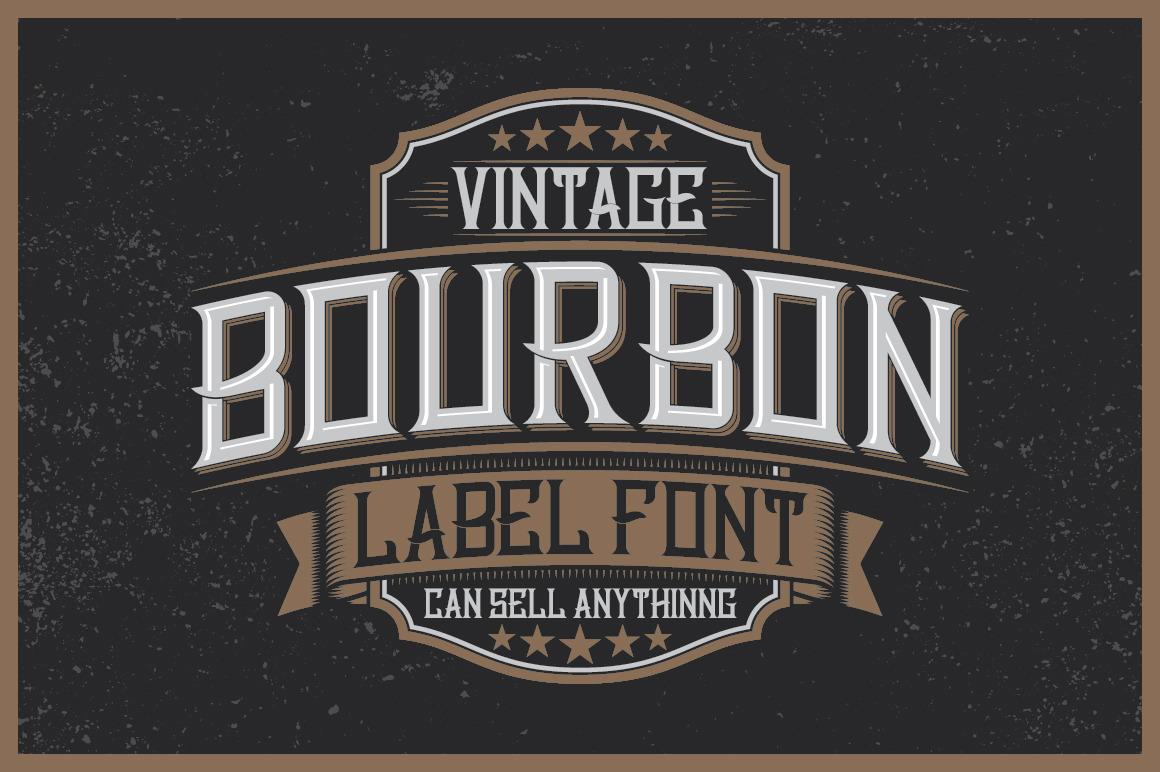
Bourbon Label typeface
Introducing a vintage look label typeface named "Bourbon Label". It's made in strong and vintage label style. Typeface is good viewed on any labels design.
- 8 fonts in complect with special effects, plus aged version
- You can mix light, texture and shadow effects (see 4-th screenshot)